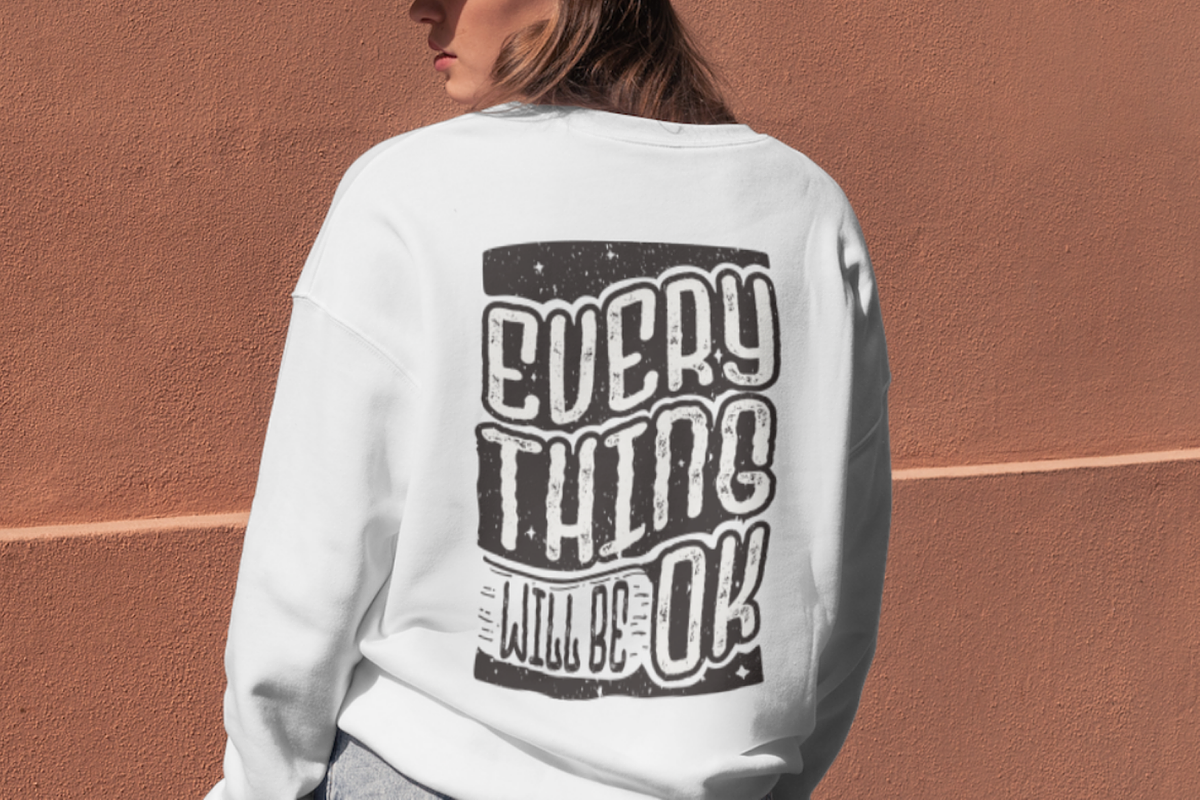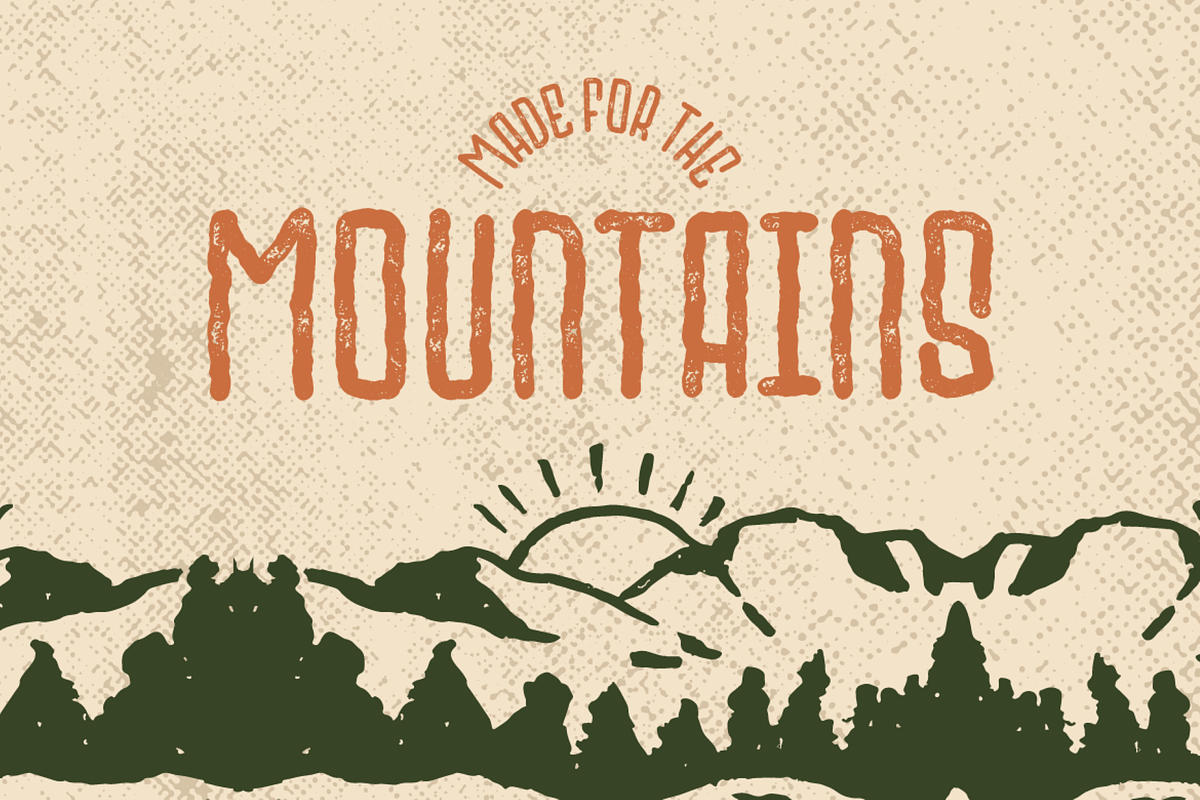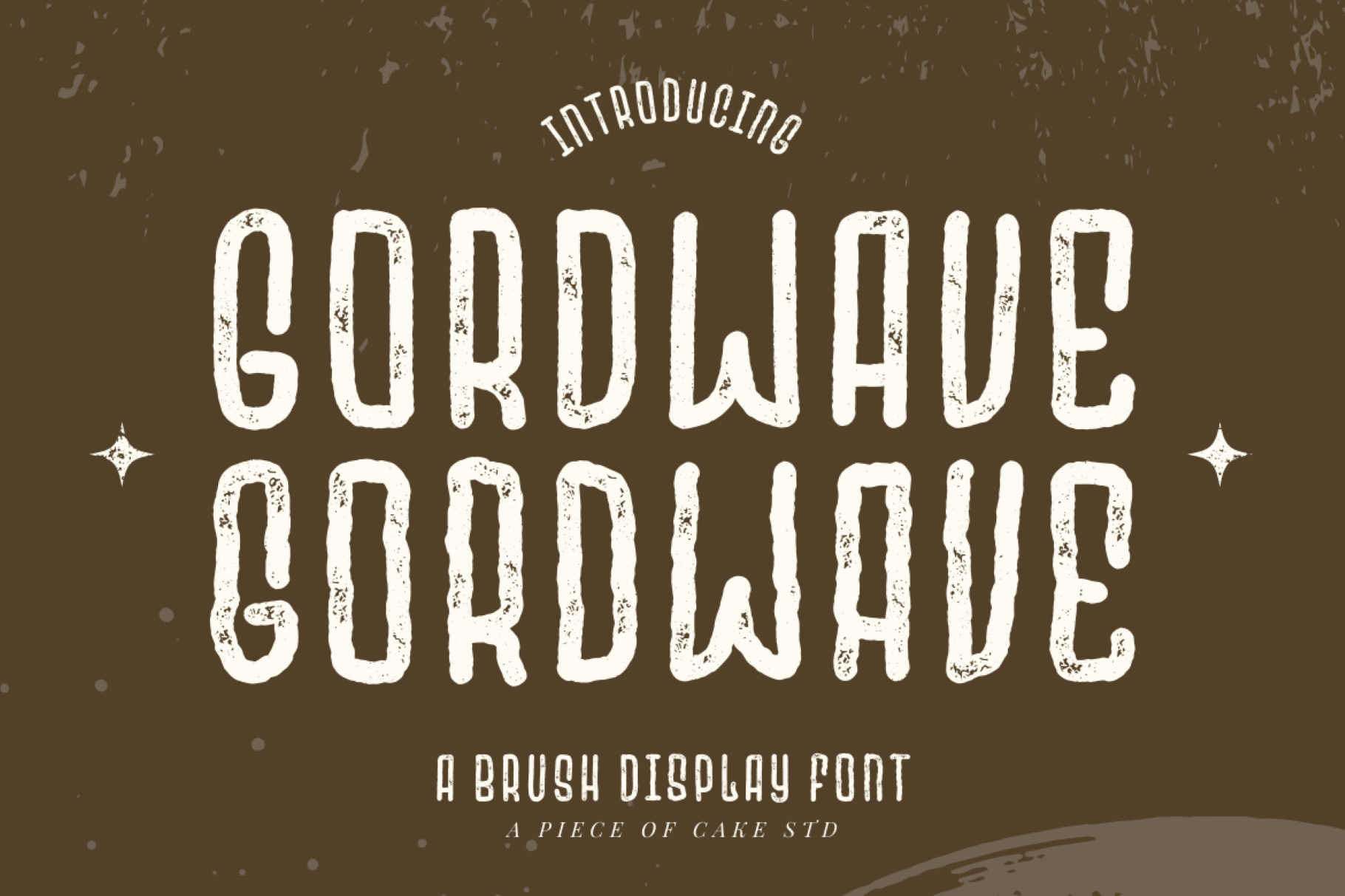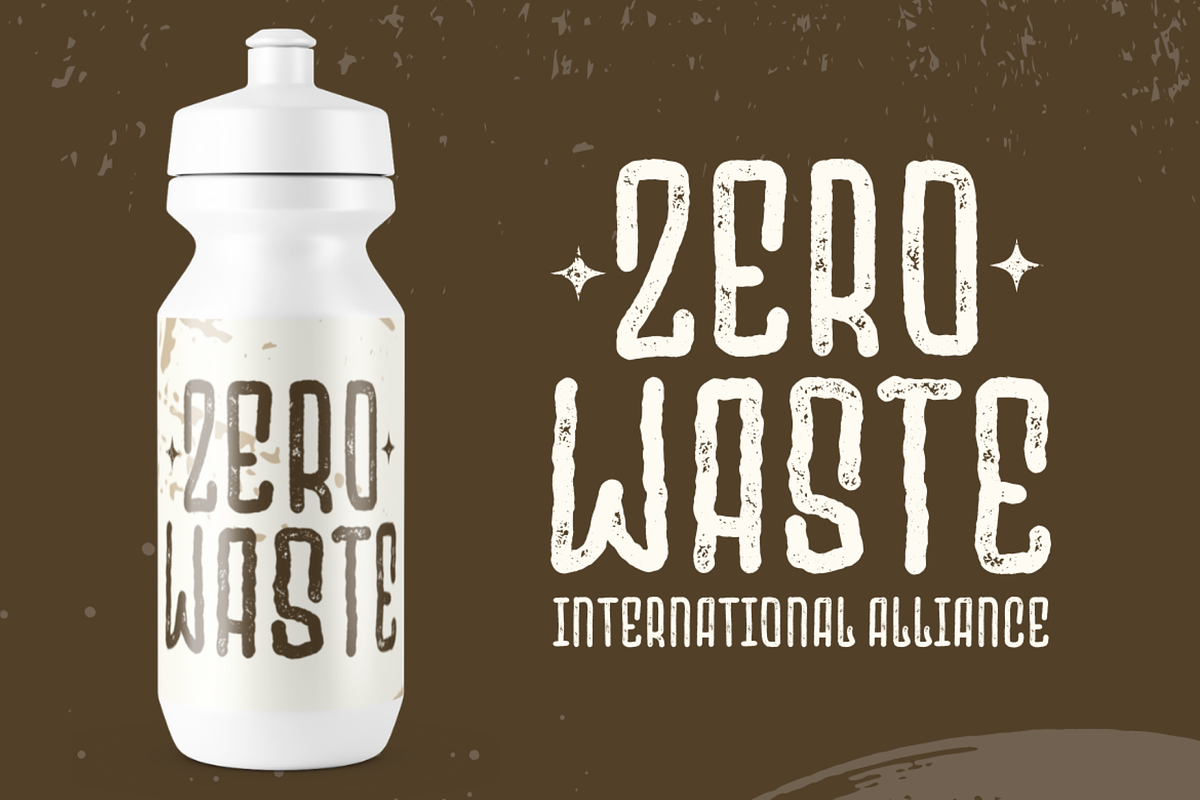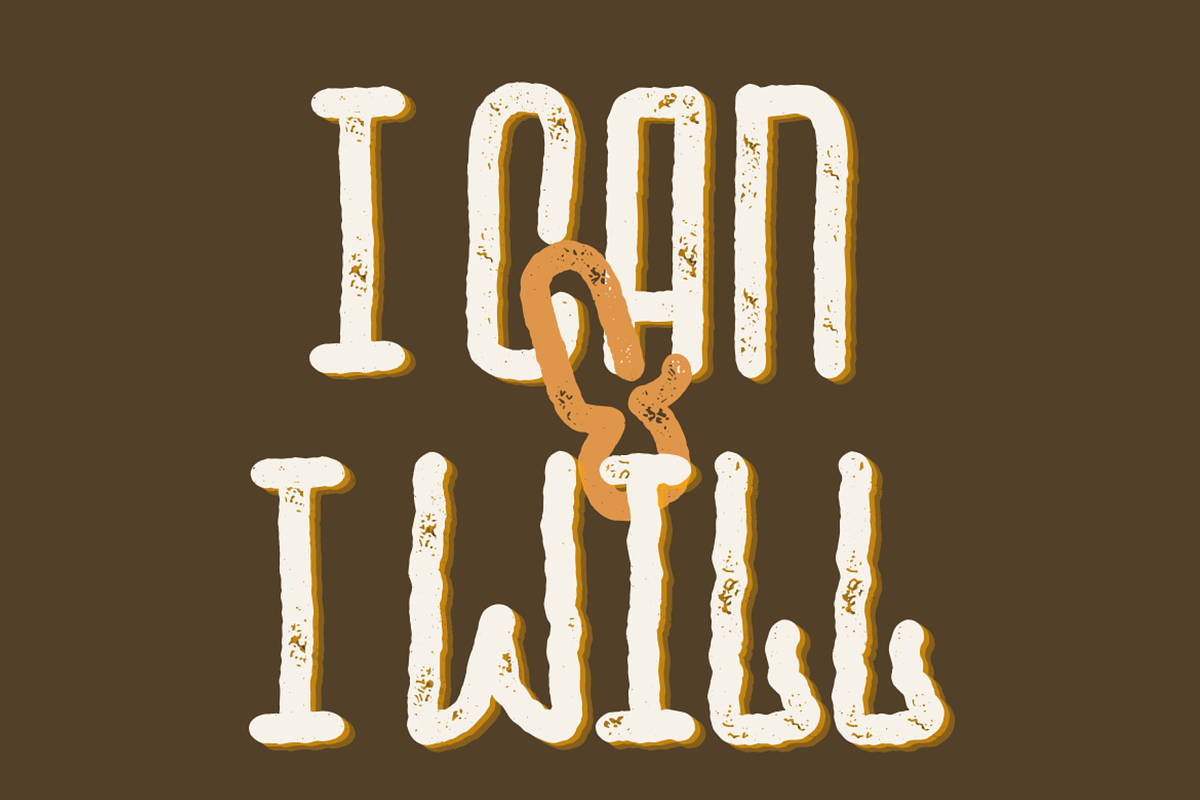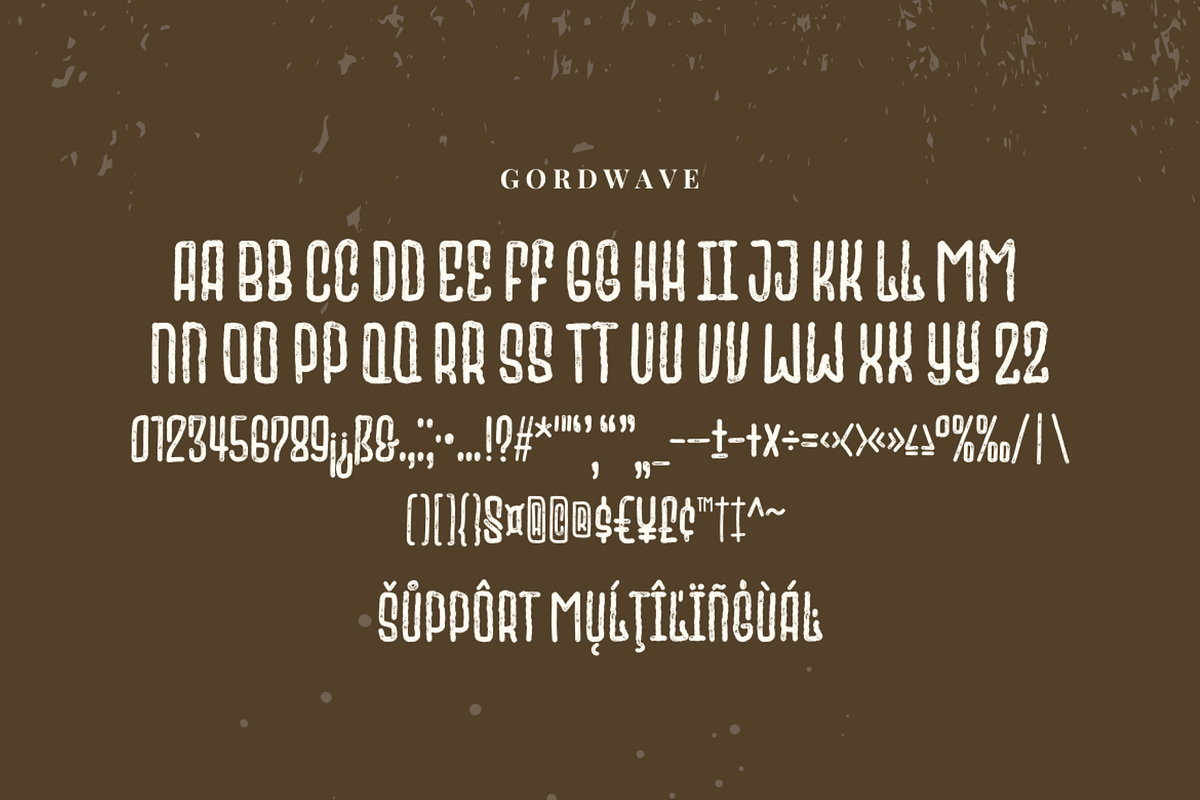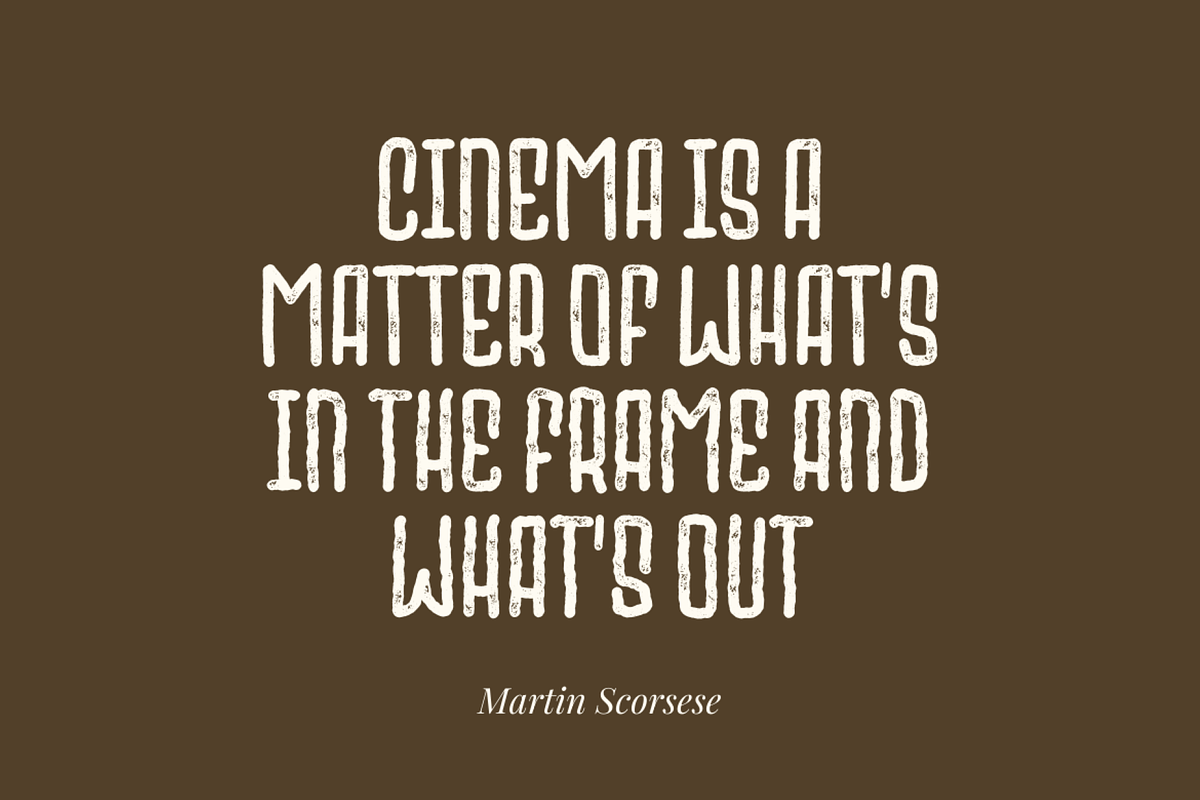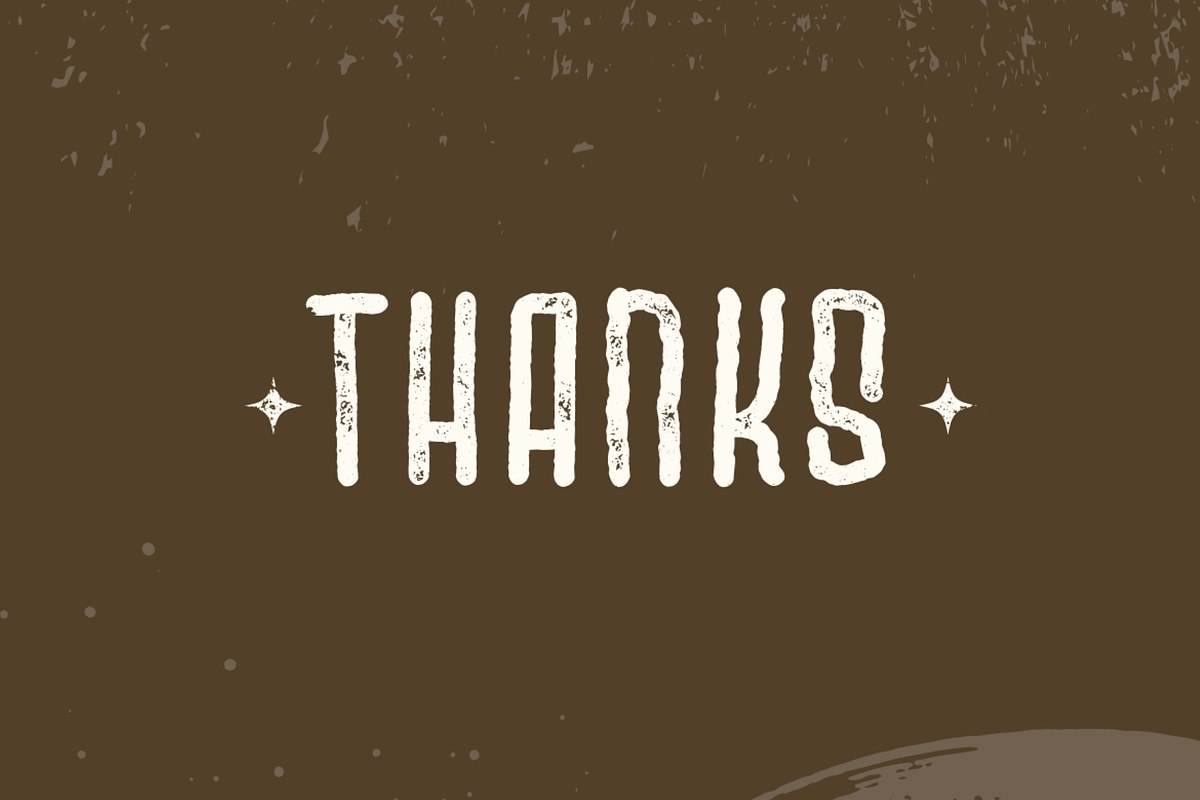
Gordwave - A Display Font
Introducing, Gordwave is a textured display font suitable for your design project needs, such as; social media posts, quotes, overlays on images, tagline, logos, posters, print needs, website banners, and more.
- A set of uppercase and lowercase glyphs
- Number, symbol, and punctuation